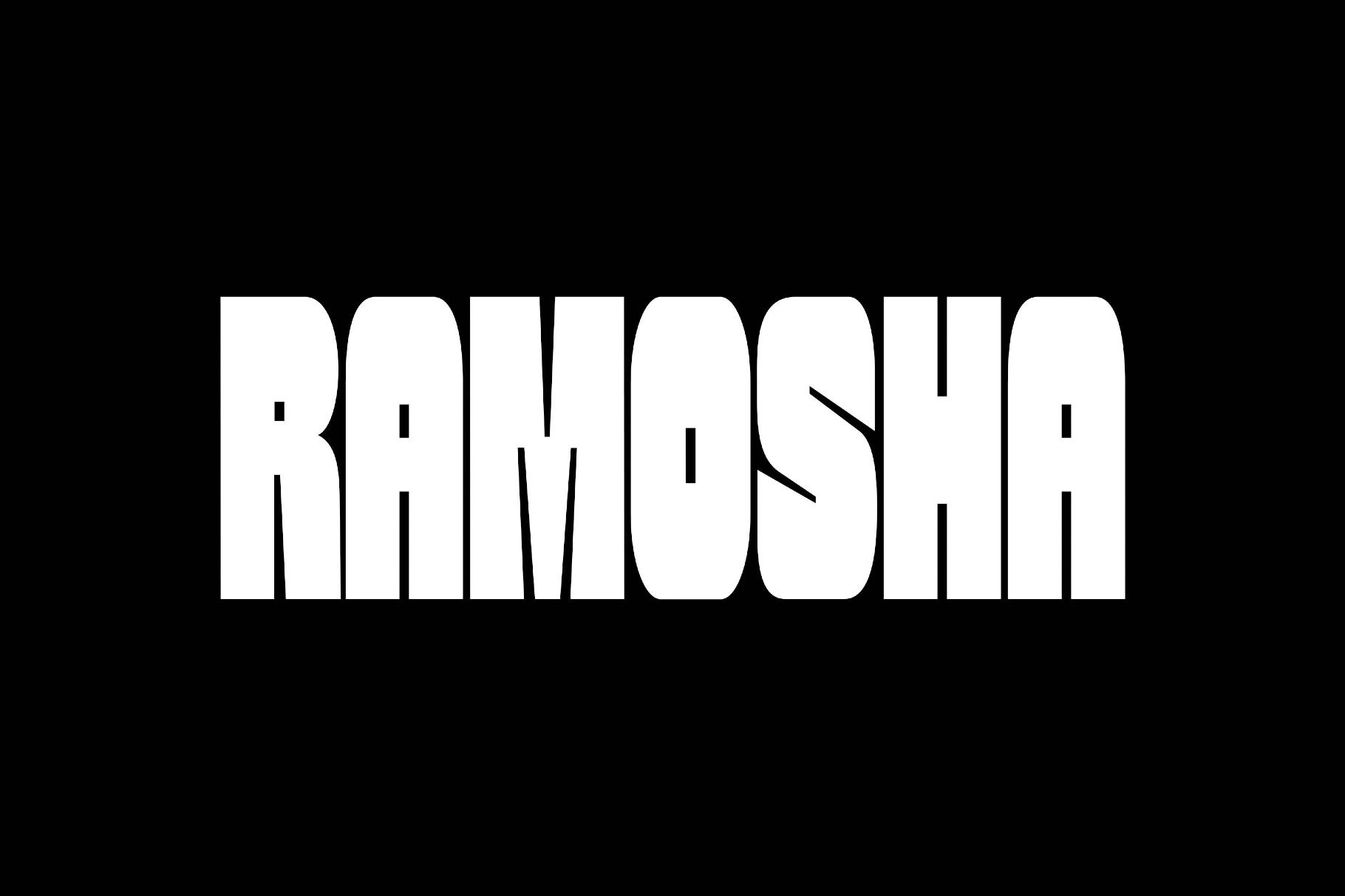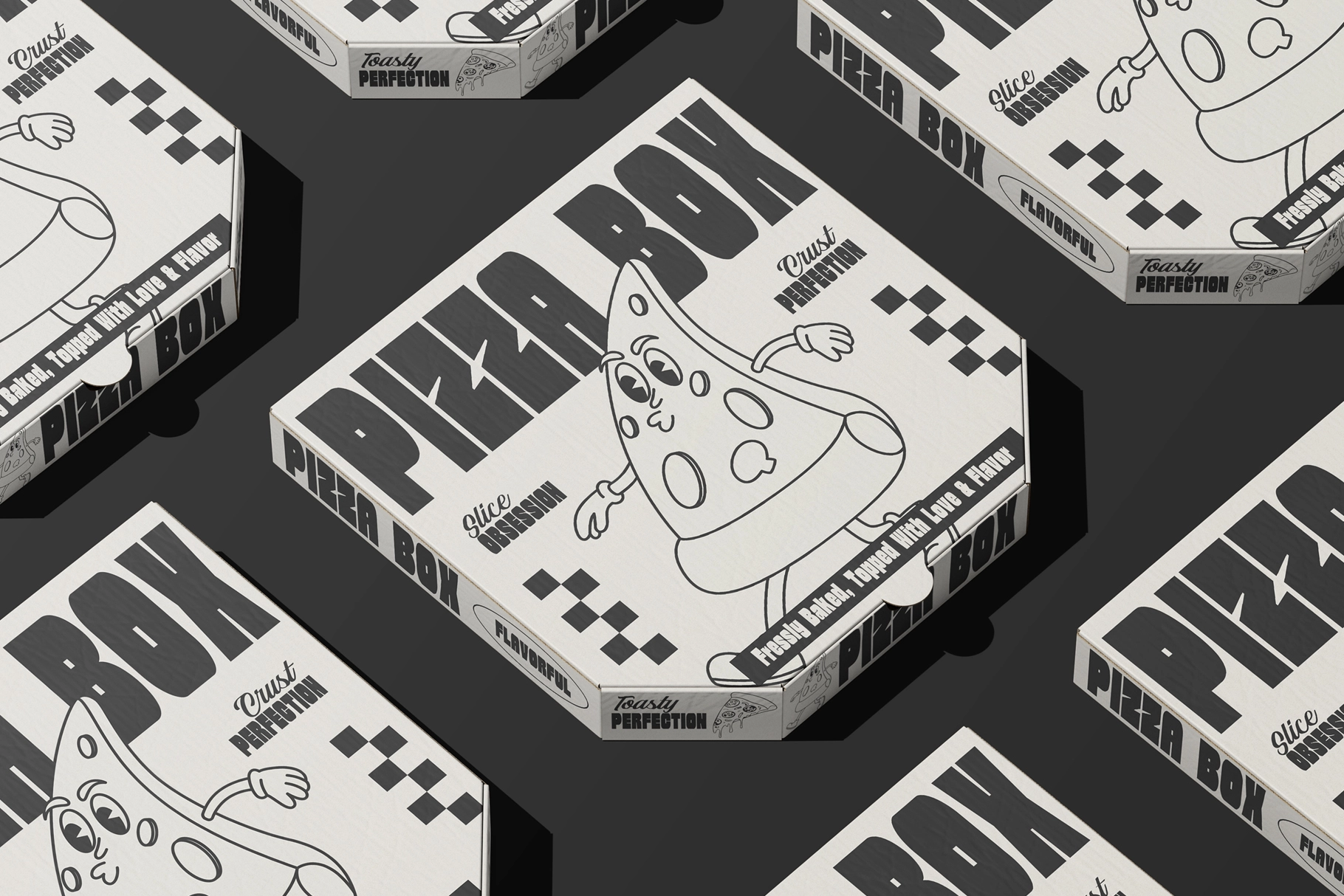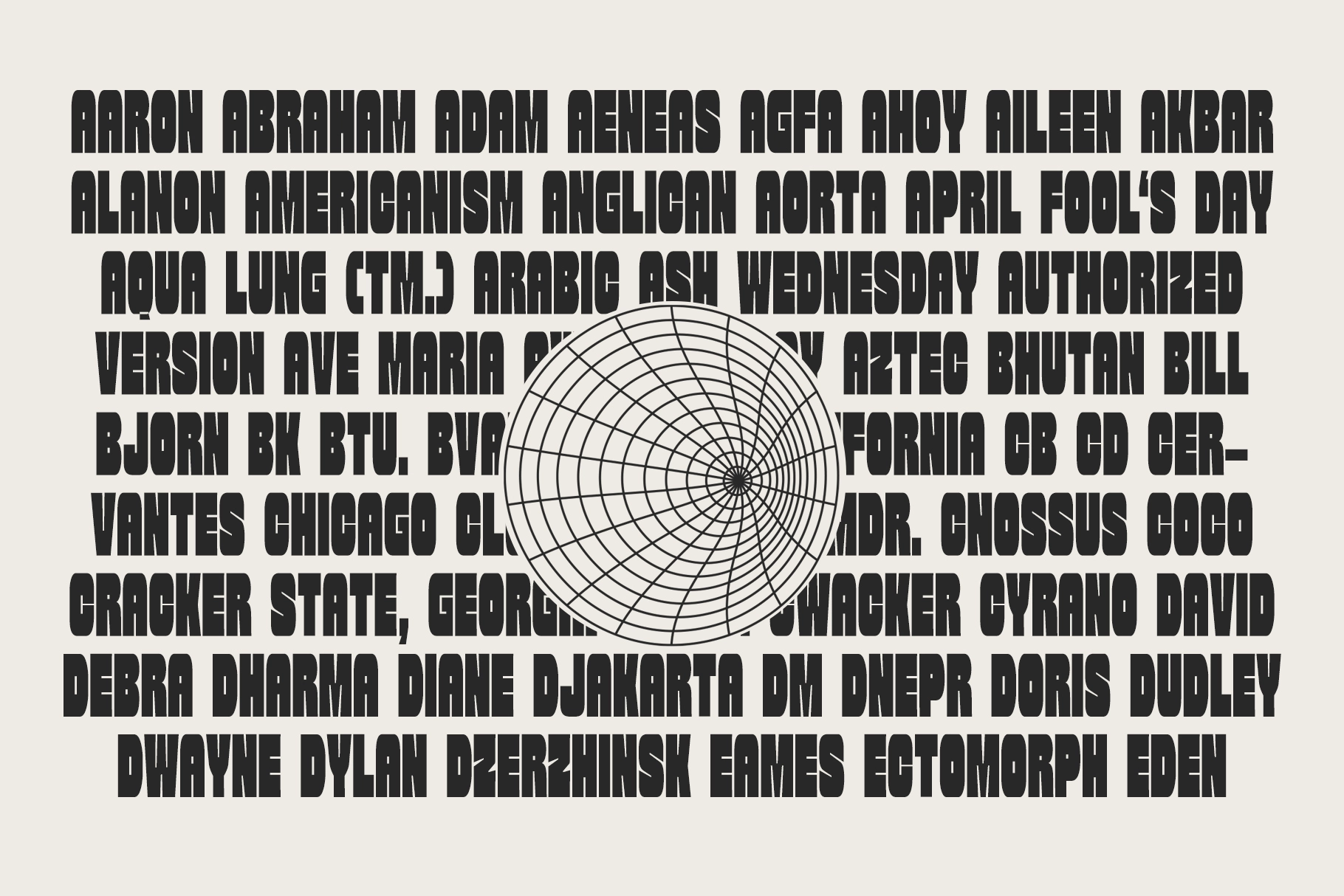
Ramosha - Bold Condensed Display Font
Ramosha stacks tall, heavyweight caps into a tight condensed frame, with thin diagonal cuts slicing clean through the thick strokes of the R, M, and S. This bold condensed display font reads with a scarred, stenciled edge instead of a smooth block finish.
The letterforms hold their impact at poster scale and in tight packaging space alike, so headlines keep their bite even when the layout runs short on room. Use it for sports graphics, movie titling, streetwear branding, packaging call-outs, gig posters, and social headlines.